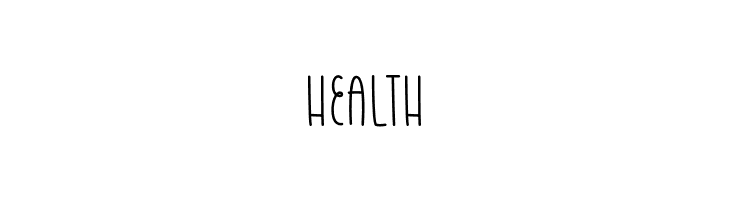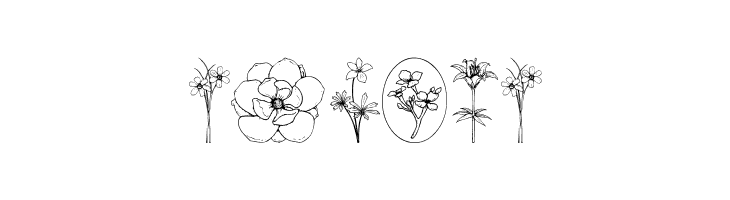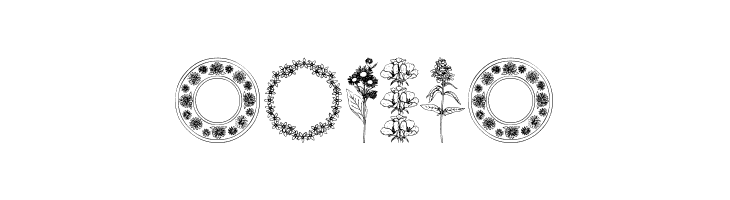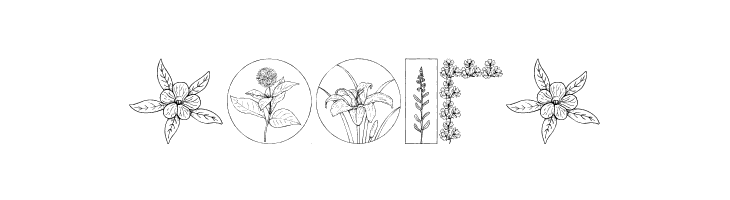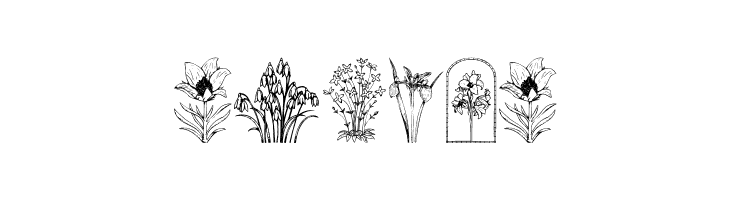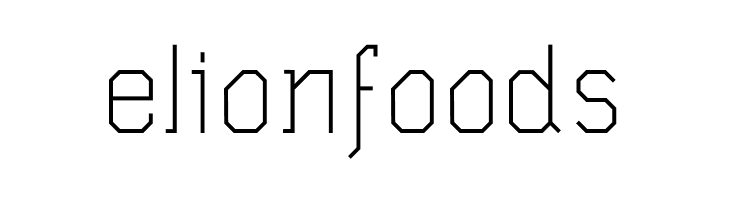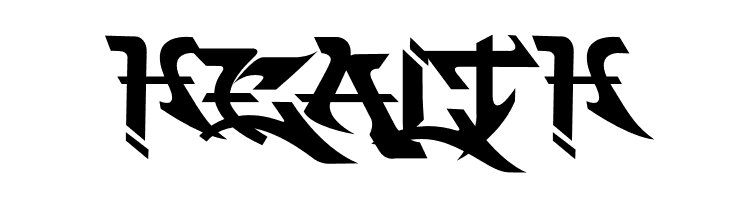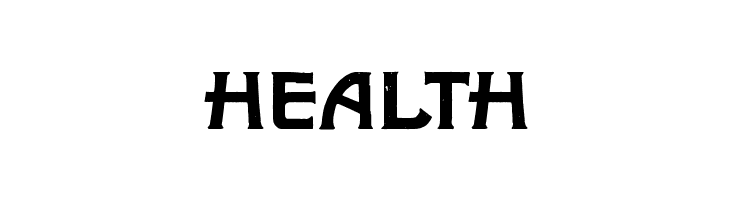
• Wellville font by Marta van Eck
A bold, decorative font with vintage and modern elements.
• what ~ fish
A playful, handwritten font with tall, narrow letters and a whimsical style.
• White Farmhouse
Playful handwritten font with a casual style.
• Wilder Artwork
A bold, expressive handwritten font with a playful, artistic style.
• Wildflower
Hand-drawn wildflower dingbat font with intricate botanical illustrations.
• Wildflower II
Botanical dingbat font with wildflower illustrations.
• Wildflower III
Hand-drawn wildflower illustrations and decorative floral frames.
• Wildflower IV
Decorative floral dingbat font with wildflower illustrations.
• WildStyle_Basic
A bold, graffiti-inspired font with sharp angles and dynamic styling.
• Wombat Light
A geometric, modern font with sharp angles and a clean, technical appearance.